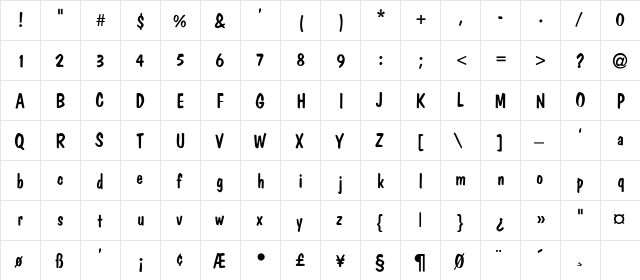
Dimitry High Regular Regular
Design Context for Dimitry High Regular Typeface
Dimitry High Regular offers clean, dependable letterforms without strong stylistic allegiance, making it a practical choice for designers who need flexibility.